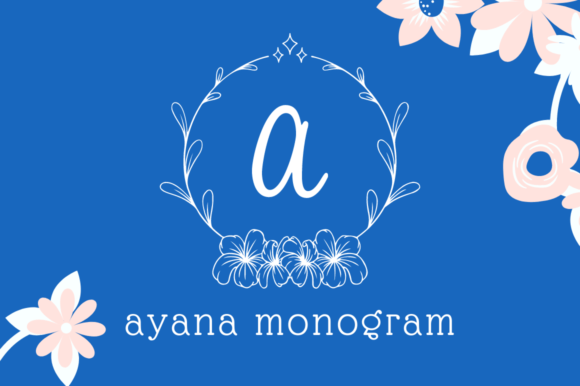
Discover the Beauty of Ayana Monogram Font
As a designer, have you ever found yourself staring at a blank page, waiting for inspiration to strike? It’s that moment when the perfect font can elevate your design from ordinary to extraordinary. For me, it was when I stumbled upon the Ayana Monogram Font – a stunning flower monogram font that captured my heart. Its lovely characters and delicate style made me want to use it for every occasion.
Ayana Monogram Font is perfect for special occasions, business designs, logos, branding, social media posts, and wedding cards. With just a simple switch between uppercase and lowercase, you can see the different styles and create a unique look that suits your needs. As a designer, you’ll appreciate the versatility and elegance that this font brings to your designs.
Ayana Monogram Font Key Features
- Font Family: Ayana Monogram Font is a unique, hand-drawn monogram font designed for creating personalized and elegant designs.
- Character Count: The font includes a wide range of characters, including uppercase and lowercase letters, numbers, punctuation marks, and special symbols, making it suitable for various design applications.
- Unique Characteristics: Ayana Monogram Font features intricate details, elegant curves, and subtle flourishes, making it ideal for creating sophisticated and luxurious designs.
Ayana Monogram Font Review
Overall, I think the Ayana Monogram Font is a lovely and elegant font. ✨ It’s perfect for those who want a unique and personalized touch to their designs. The font is well-designed, with a beautiful and intricate monogram style that’s sure to make any design stand out.
Here are some of the things that work well about the font:
- ✨ Unique and personalized design
- ✨ Perfect for weddings, special occasions, or personal branding
- ✨ Elegant and sophisticated style
- ✨ Great for use in logos, letterheads, and business cards
- ⚠️ Limited font sizes and styles available
- ⚠️ May not be suitable for all types of designs or industries
- ⚠️ Can be a bit too ornate for some tastes
Overall, I would recommend the Ayana Monogram Font to anyone looking for a unique and elegant font for their designs. Just be aware of its limitations and use it wisely.
Use the Ayana Monogram Font to add a touch of elegance and sophistication to your designs.
– Creating custom logos and branding materials.
– Designing social media graphics and promotional materials.
– Adding a unique touch to presentations and reports.
– Creating stylish titles and headings for websites and blogs.